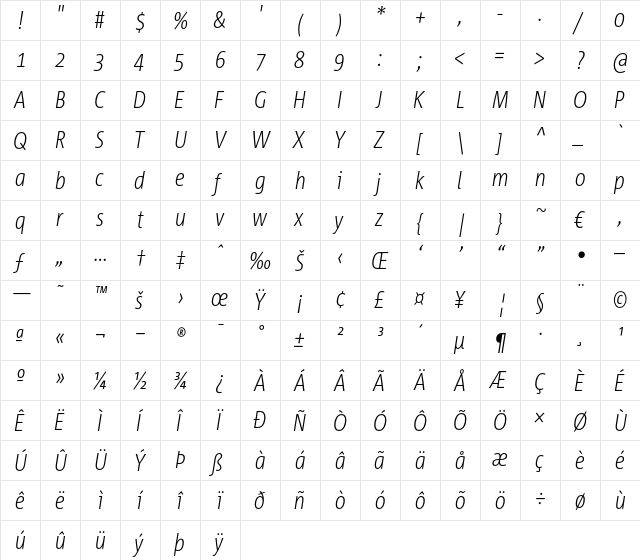
Corpid Cd Light Italic Font Preview
Design Context for Corpid Cd Typeface
Corpid Cd offers clean, dependable letterforms without strong stylistic allegiance, making it a practical choice for designers who need flexibility. The dynamic lean of this cut emphasises speed and emphasis in any layout. The delicate stroke weight brings airiness and refinement to layouts.
Pro Tip: Try Corpid Cd for annotation and caption copy alongside an upright companion — the contrast in angle creates a dynamic but ordered typographic system.